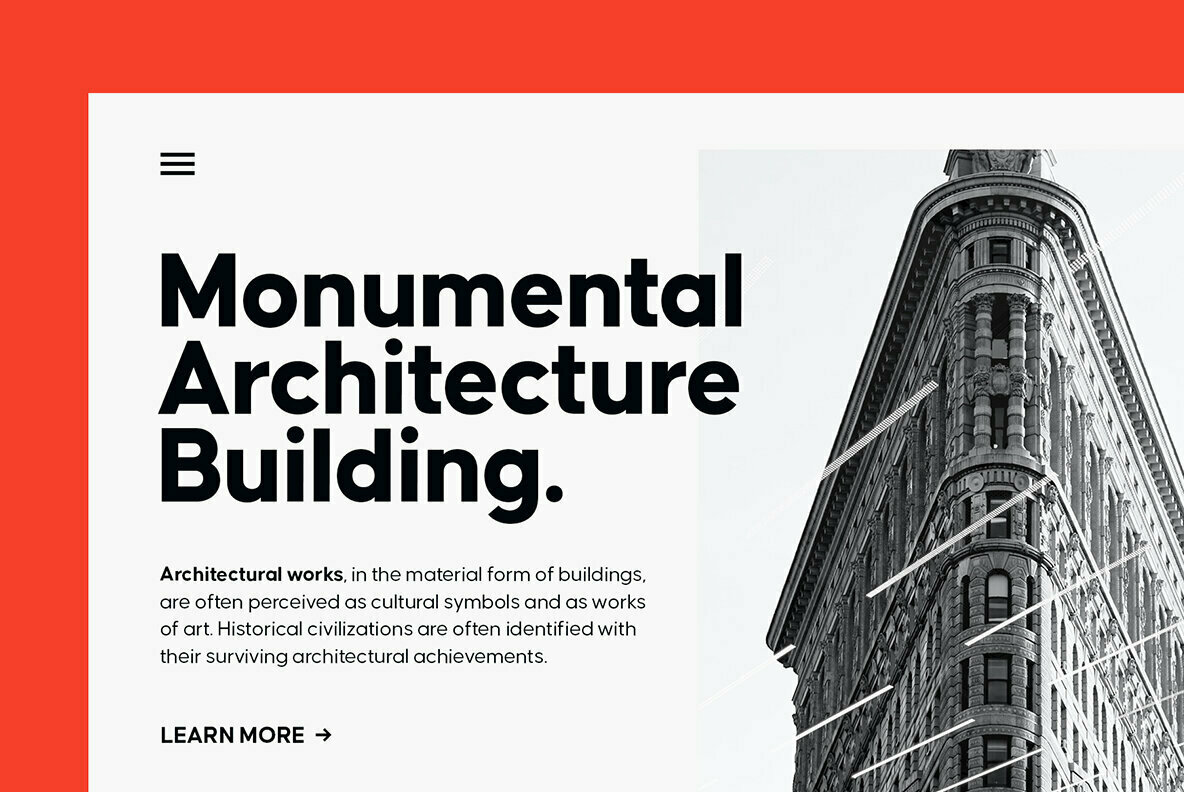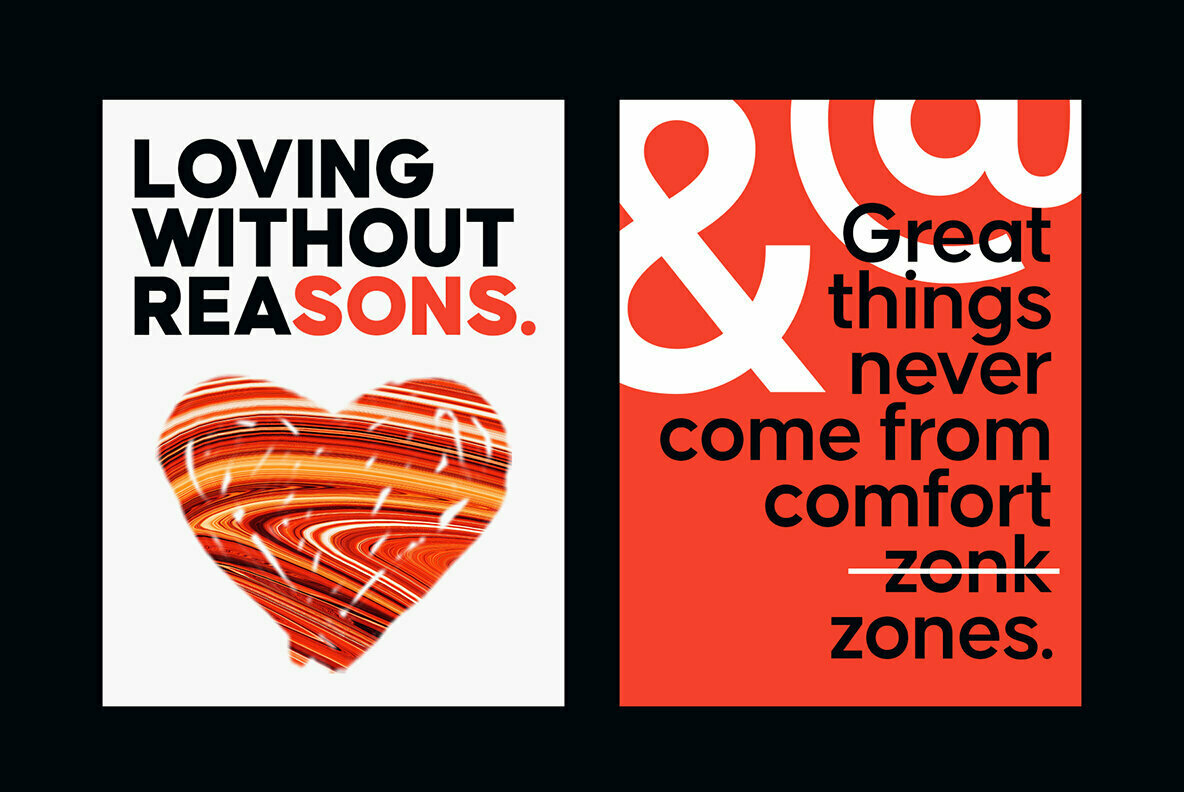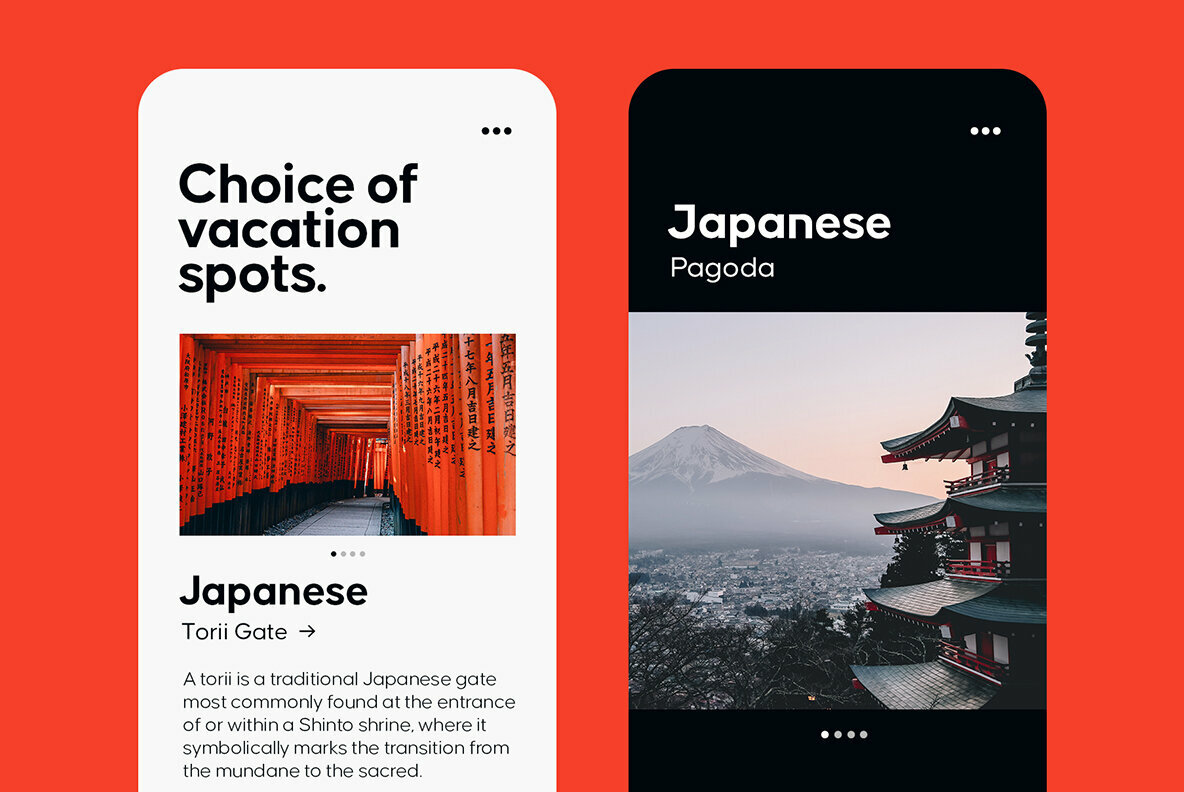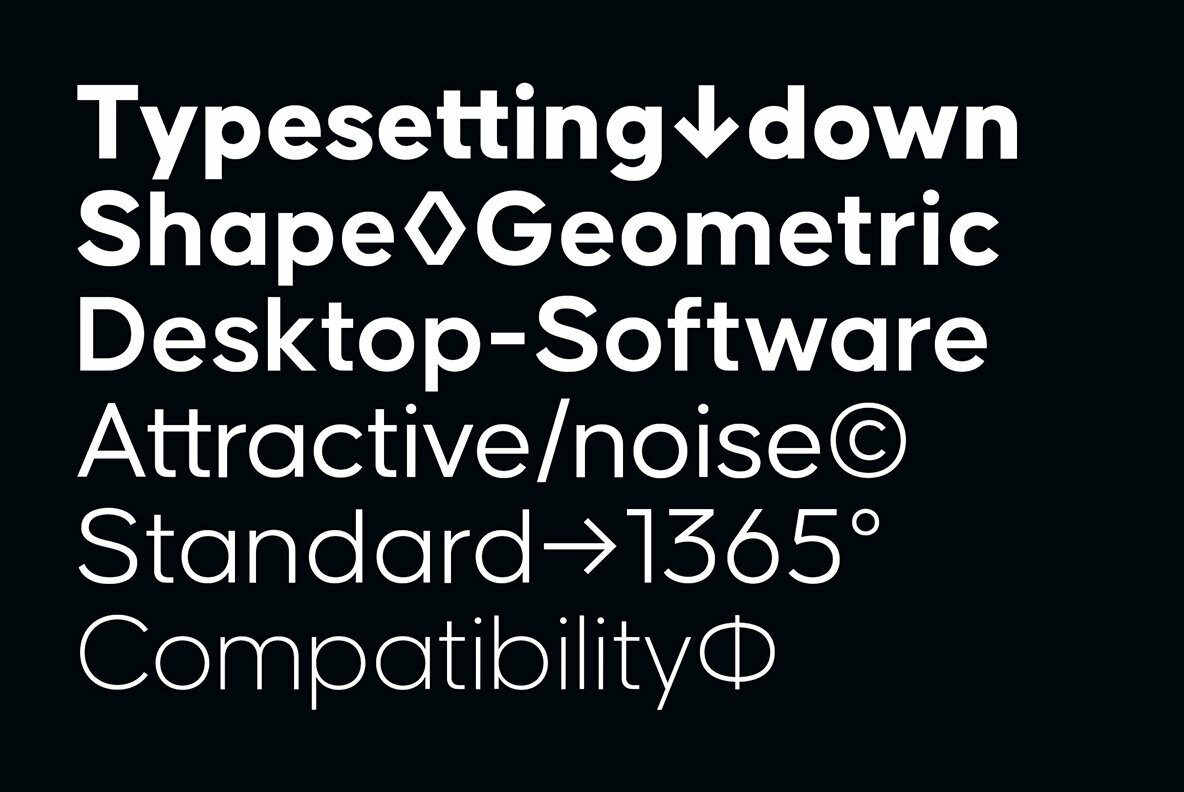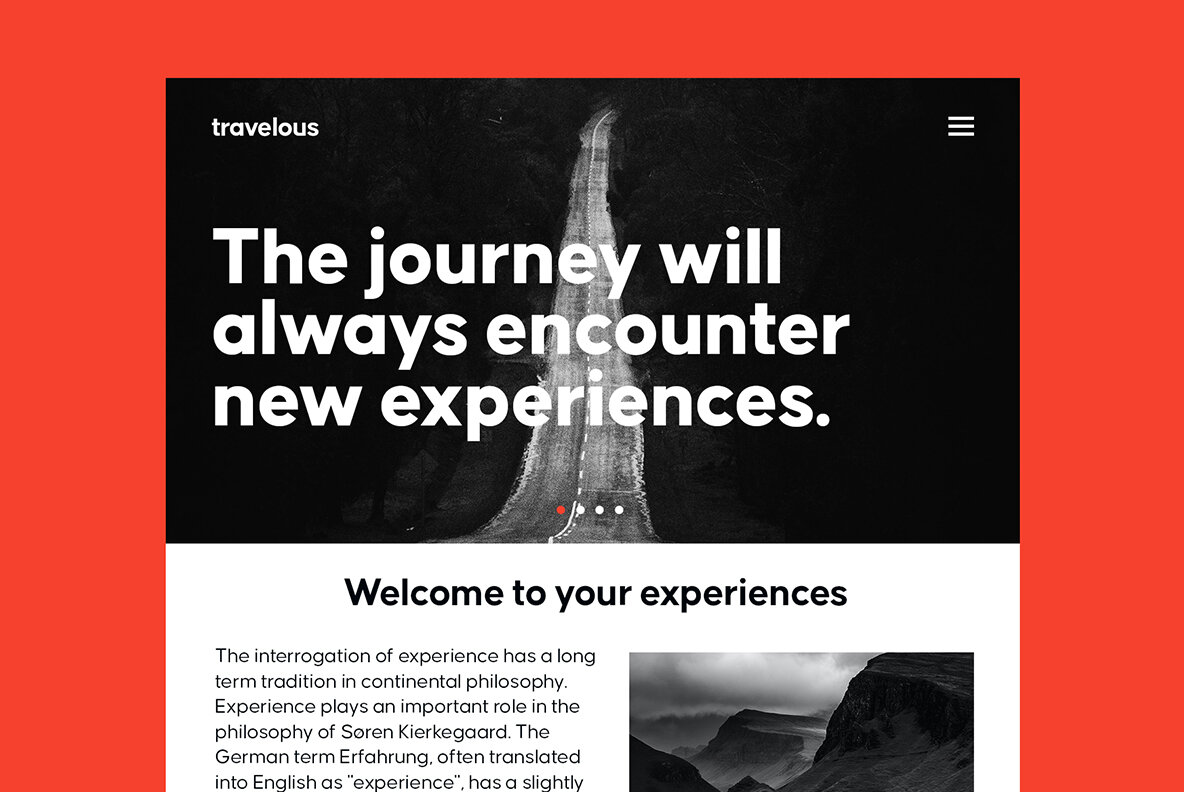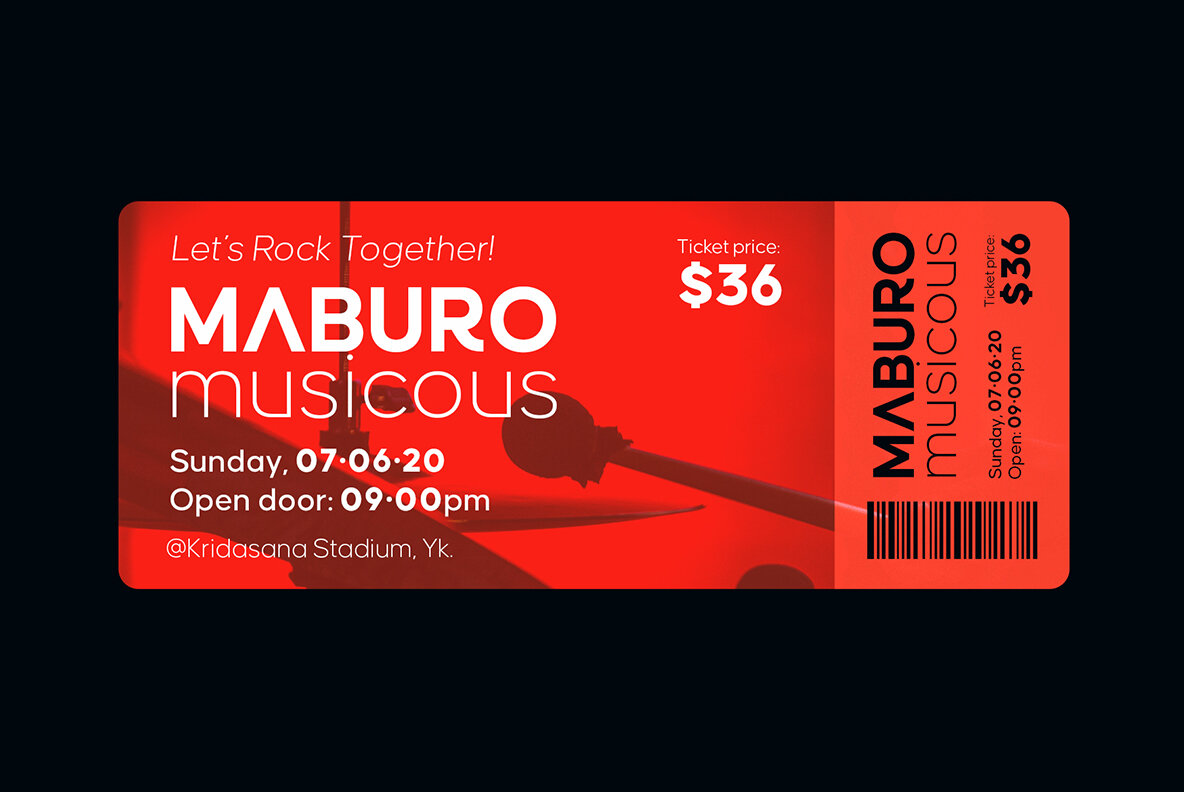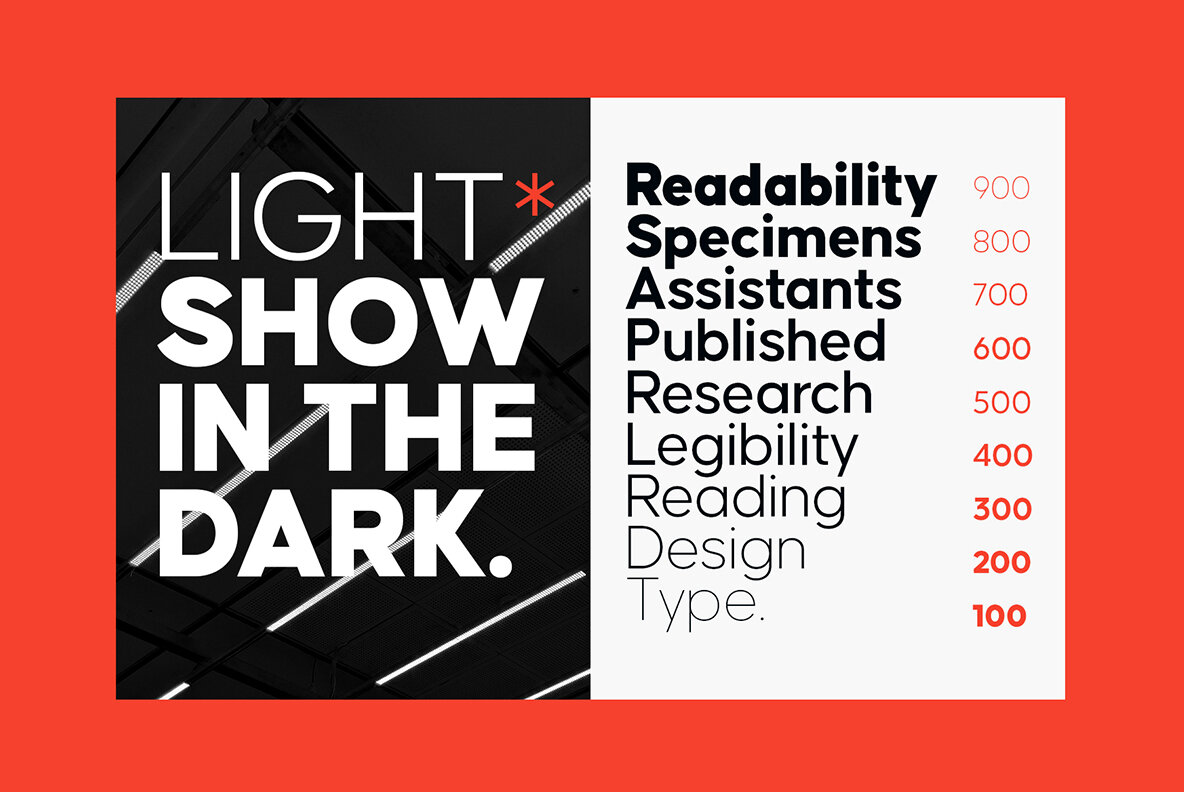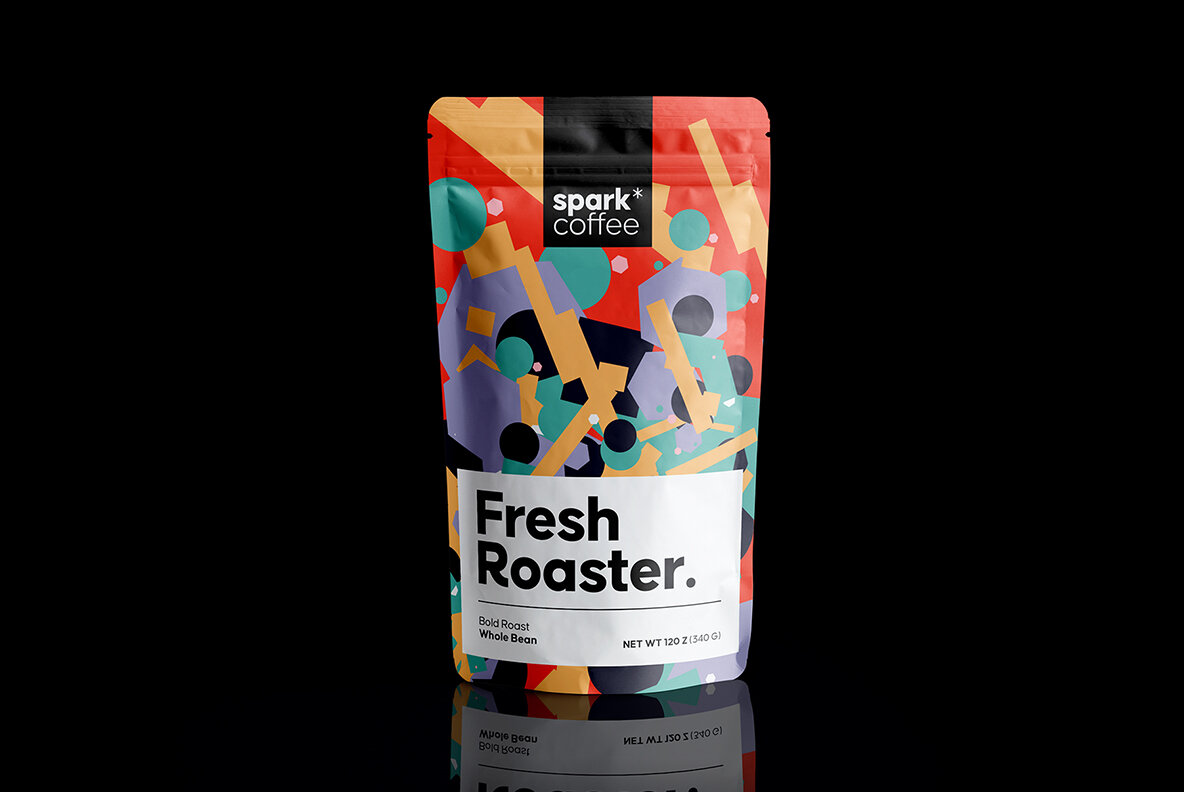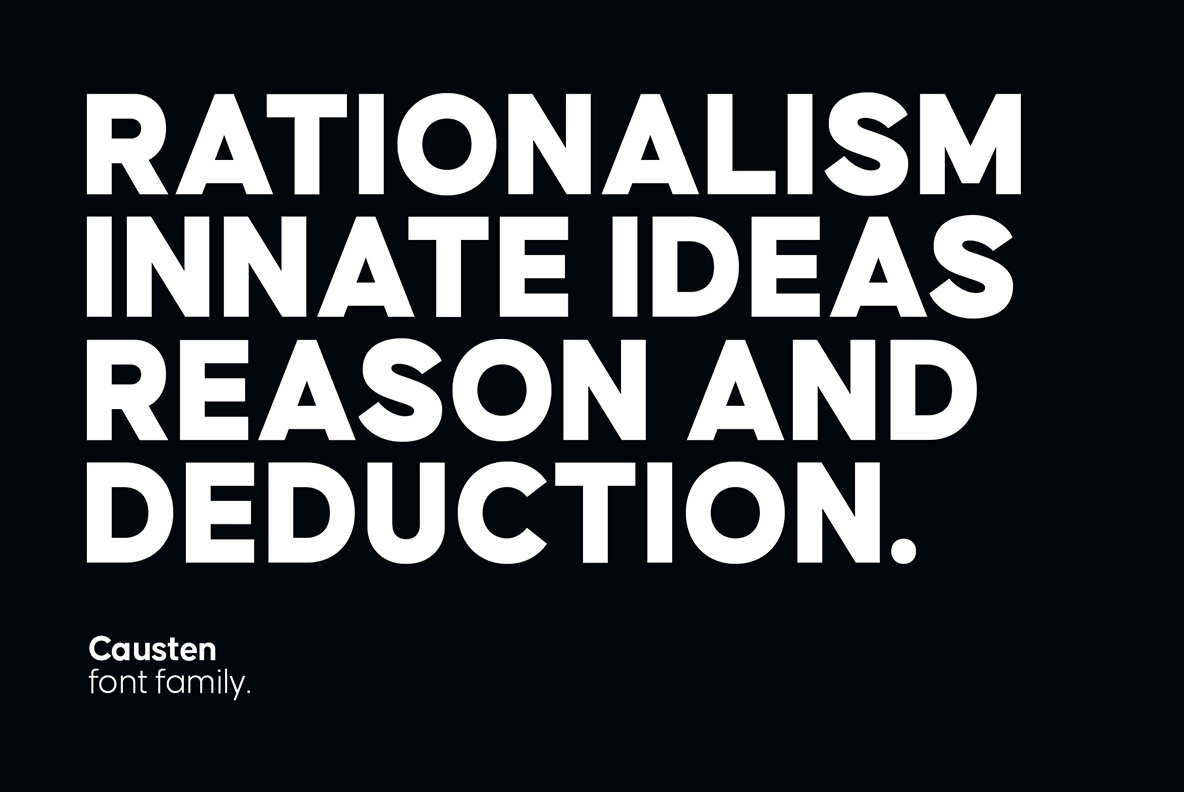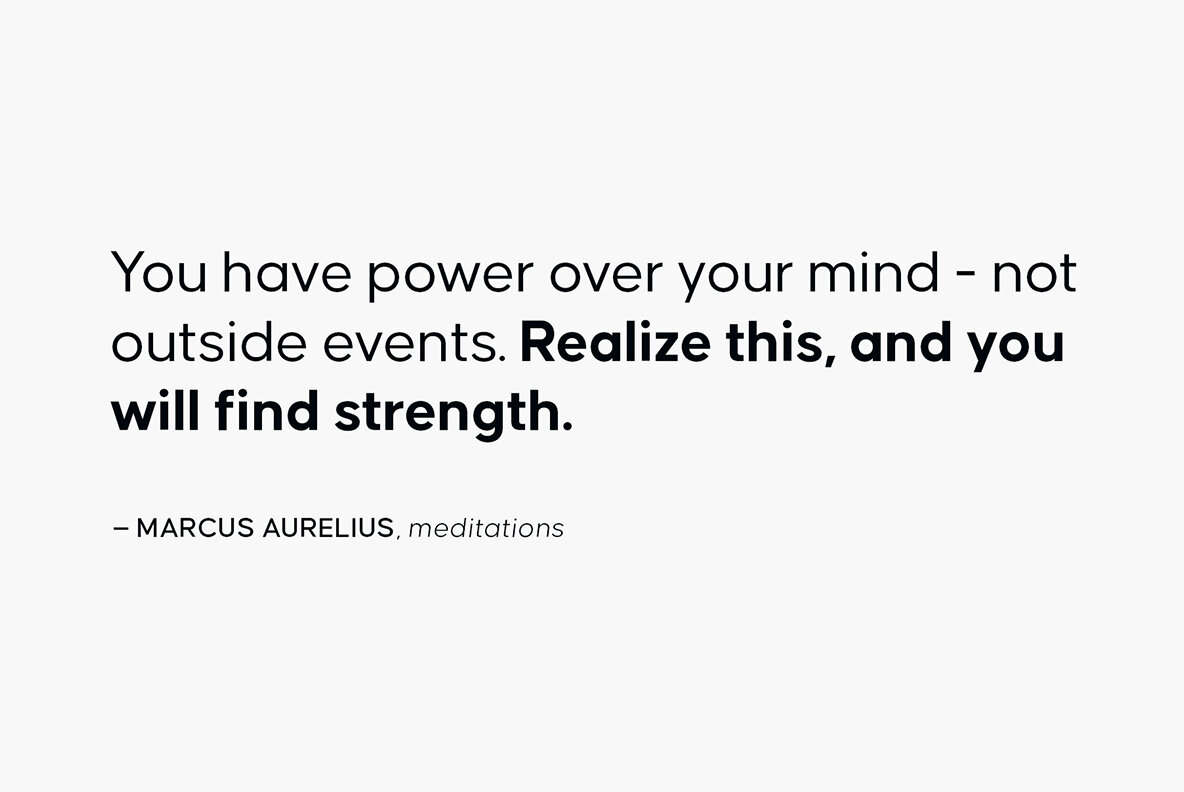
Causten Font
Causten offers a sophisticated sans serif font family epitomizing geometric precision. Designed with meticulous attention to balance and form, it ensures each character maintains a clean and structured appearance. Developed for clear readability, Causten's mathematical harmony renders it an excellent choice for those seeking precision in their typographic projects.Causten: Rational Geometric Sans Serif
Explore the beauty of structured geometry with Causten, perfectly tailored for the discerning designer’s toolkit.